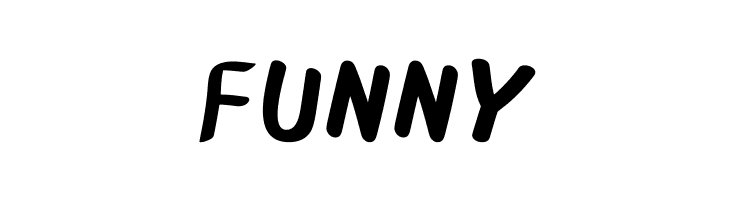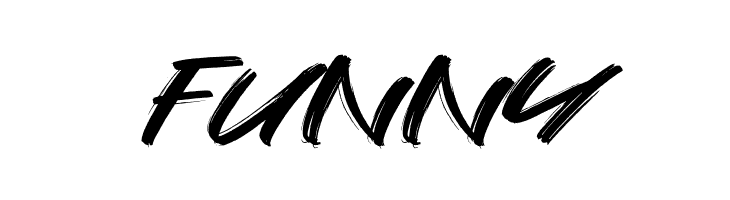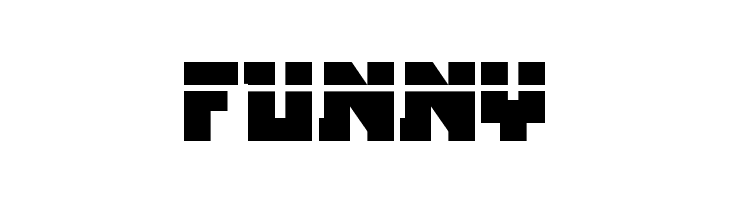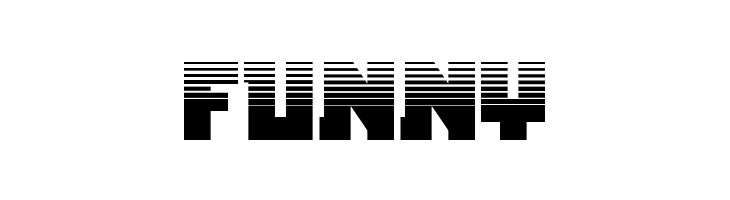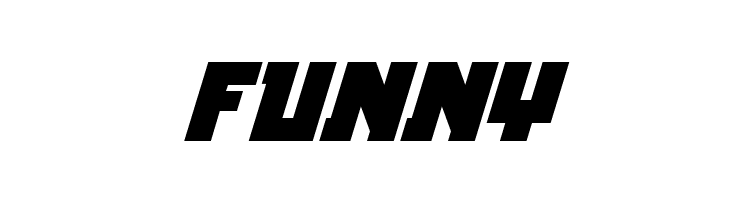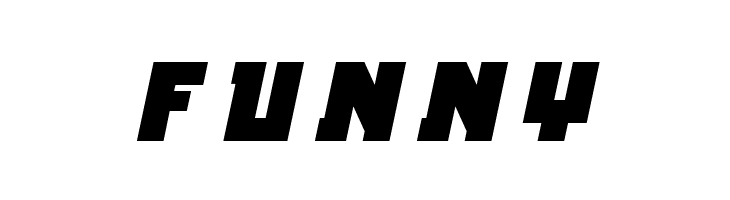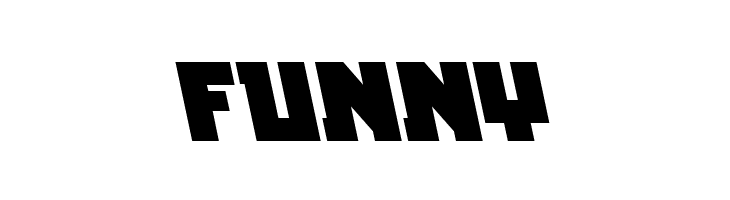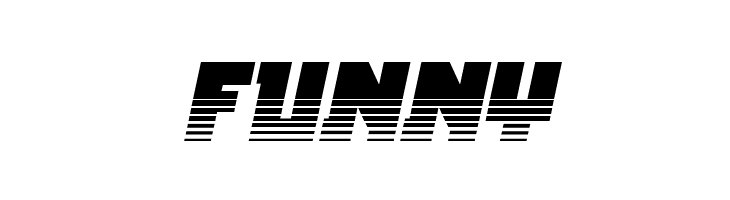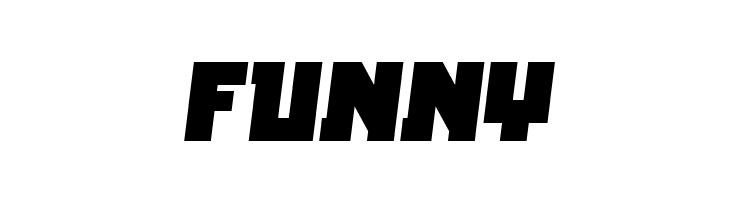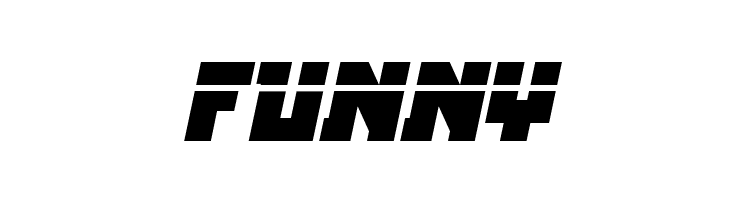
A bold, geometric font with a halftone effect and modern style.
A bold, futuristic font with a halftone effect and italic slant.
A bold, angular, and dynamic font with a futuristic and energetic style.
A bold, geometric font with a futuristic and digital aesthetic.
A bold, angular, and futuristic font with sharp geometric lines.
A bold, angular font with a geometric and dynamic style.
A bold, angular, semi-italic font with a modern and dynamic style.
A bold, angular, and italic font with a futuristic and aggressive style.
A bold, geometric font with a strong, industrial aesthetic.
A bold, geometric, italic font with sharp angles and strong visual impact.
A bold, futuristic font with a two-tone gradient effect and geometric design.
A bold, italicized font with a two-tone striped design, exuding a futuristic and dynamic style.
A modern, geometric font with sharp, angular lines and a futuristic style.
A geometric, Art Deco-inspired font with elegant, elongated forms.
A sleek, art deco-inspired font with tall, narrow letterforms and subtle curves.
A playful, hand-drawn font with bold, irregular strokes and a casual vibe.
An elegant, flowing script font with a classic calligraphic style.
A bold blackletter font with sharp, angular lines and a dramatic presence.
A bold, gothic-inspired font with sharp, angular edges and a strong presence.
A flowing, cursive script font with elegant, interconnected strokes.
An artistic and whimsical font with elongated, flowing letterforms.
A bold, flowing script font with high contrast and elegant curves.
A playful, rounded handwritten font with smooth, consistent strokes.
A bold, brush script font with dynamic, hand-painted strokes.
A bold and dynamic brush script font with sweeping strokes.
A bold, modern sans-serif font with clean lines and uniform strokes.
A bold, modern sans-serif font with clean lines and strong legibility.
A bold, stencil-inspired font with geometric shapes and clear cutouts.
A bold, industrial stencil font with geometric shapes and clear cutouts.
A fluid, cursive font with elegant, flowing lines and a handwritten quality.
A cursive font with elegant loops and smooth transitions, perfect for formal uses.
A modern, geometric font with a unique cut-off style and consistent stroke width.
A rugged, distressed font with a grunge-inspired, chaotic style.
An elegant script font with flowing, ornate swashes and a romantic style.
An ornate script font with intricate swirls and flourishes, exuding elegance and sophistication.